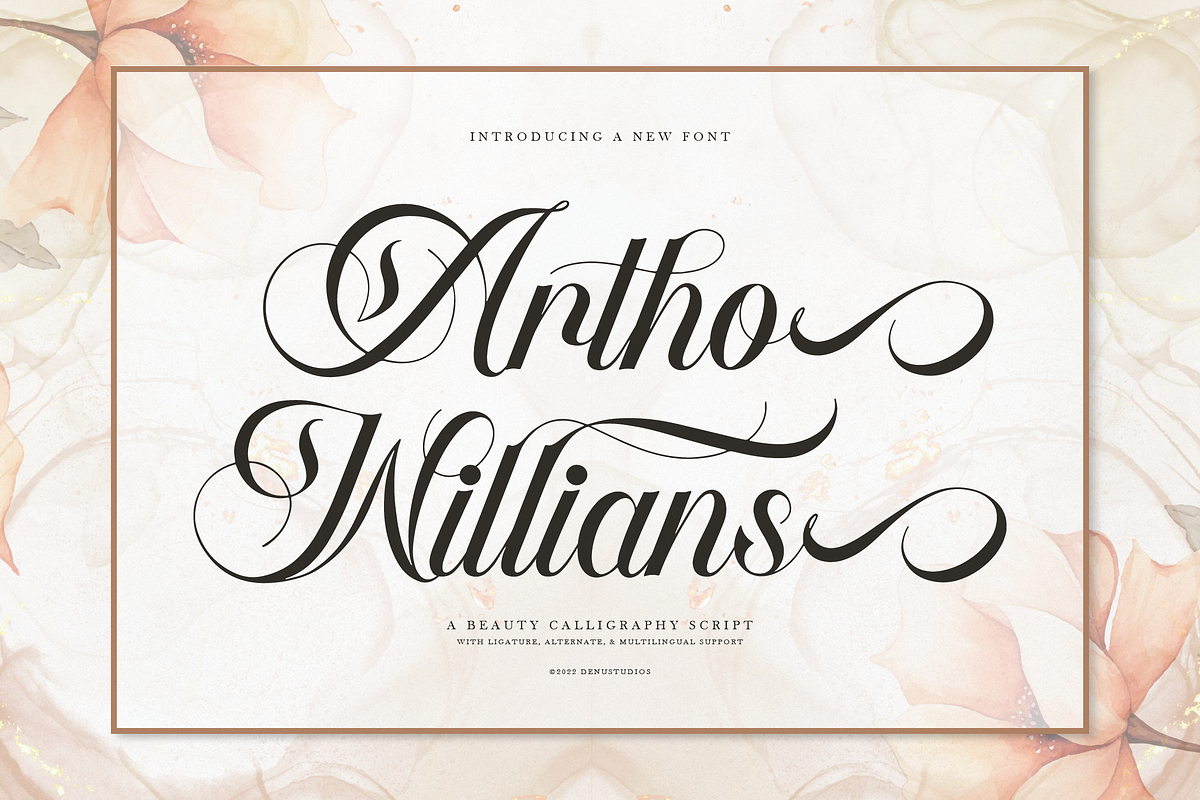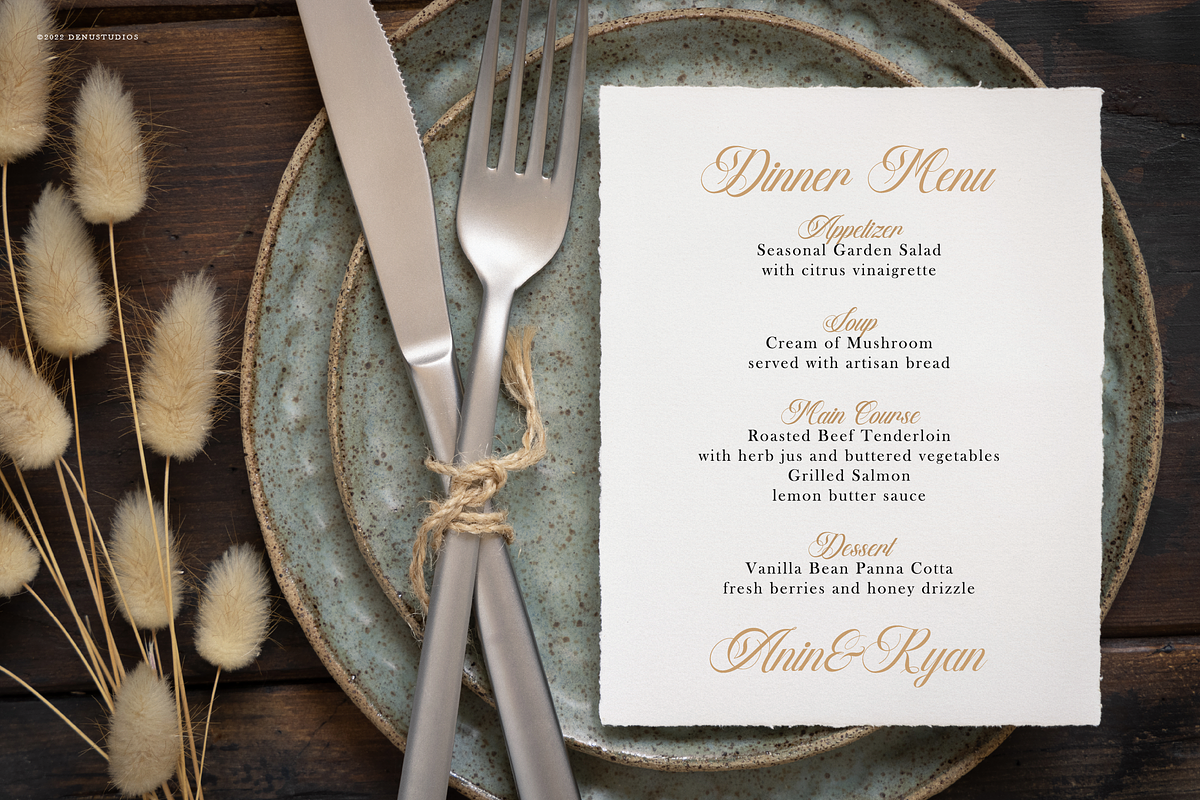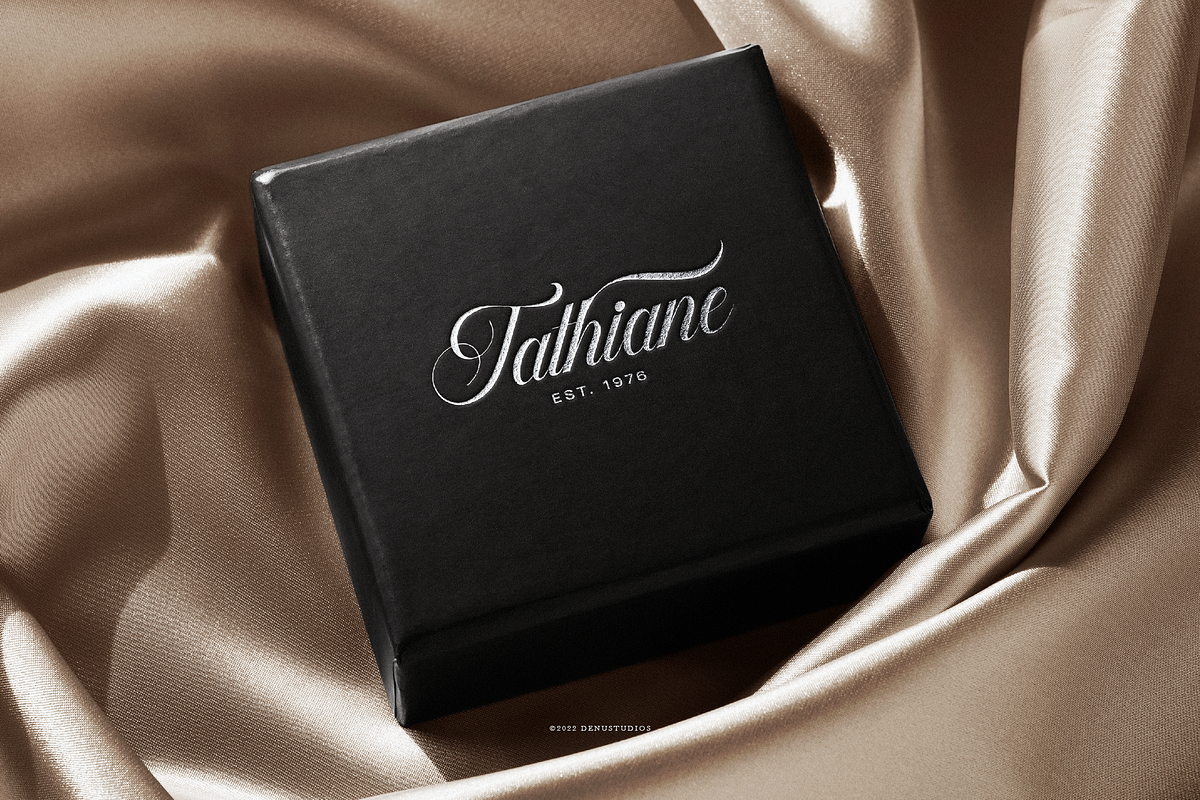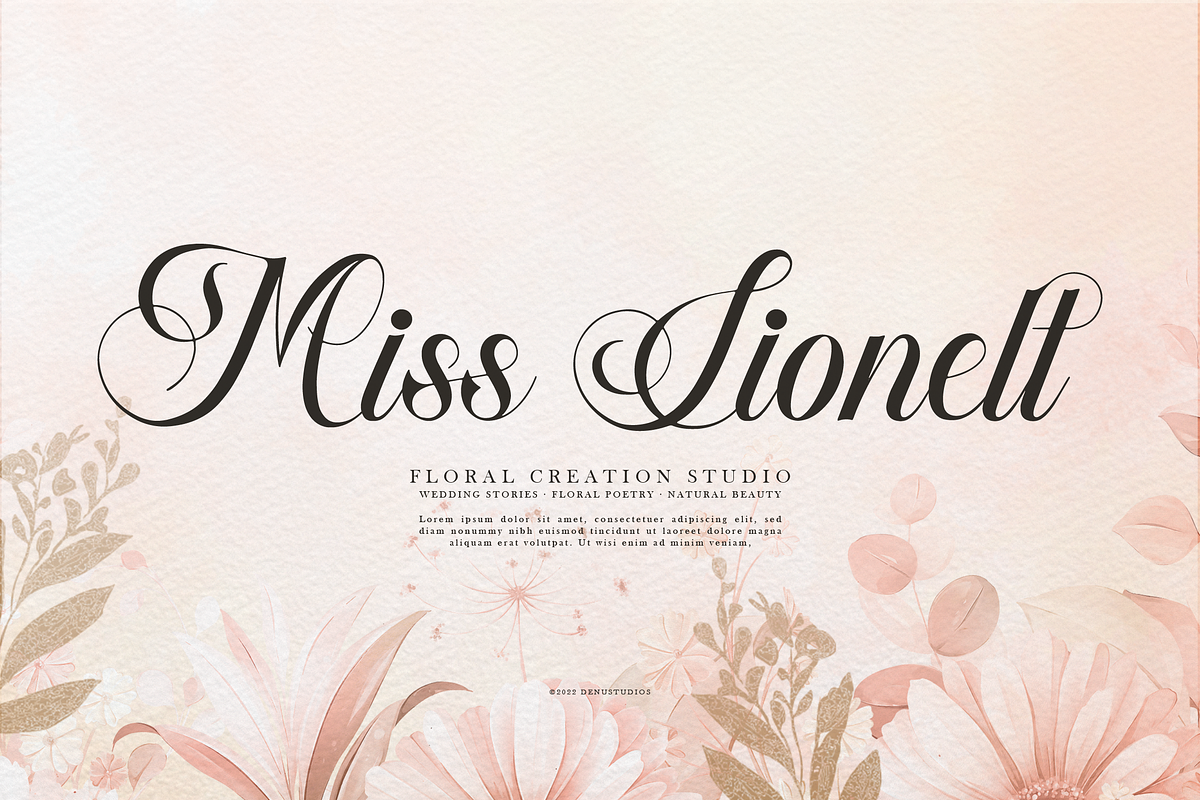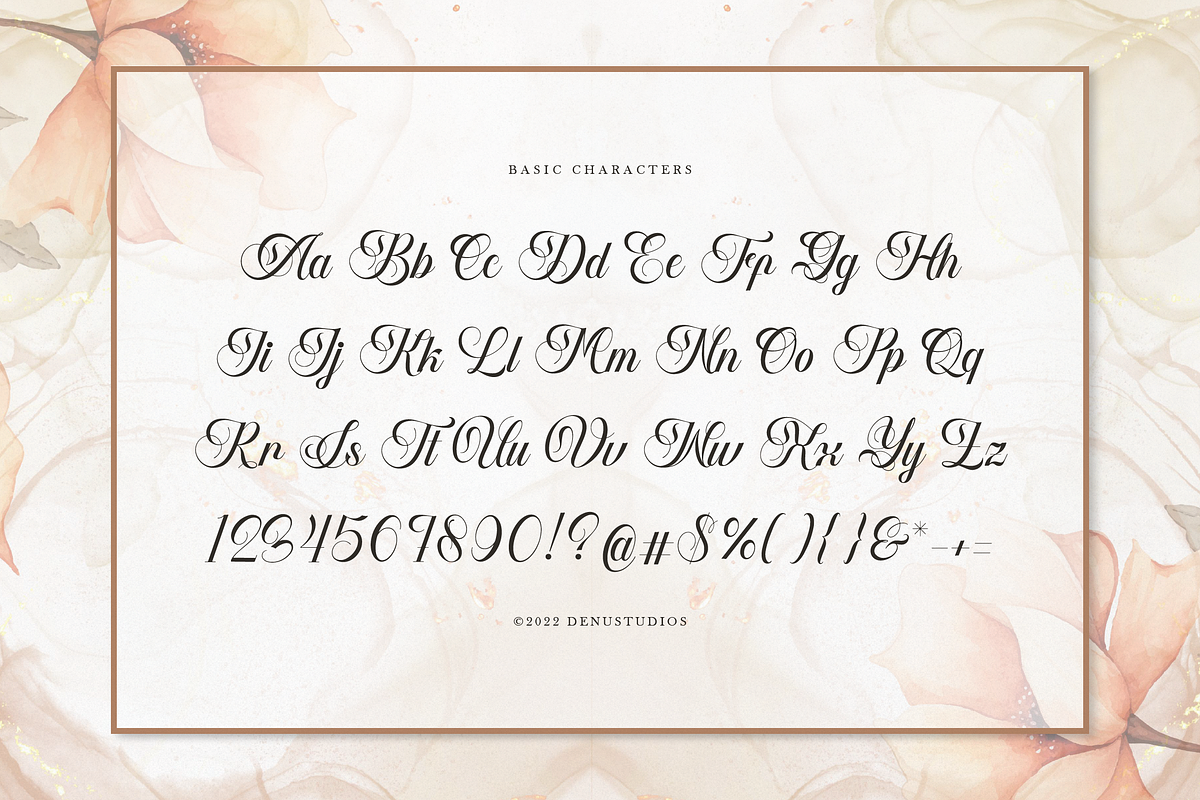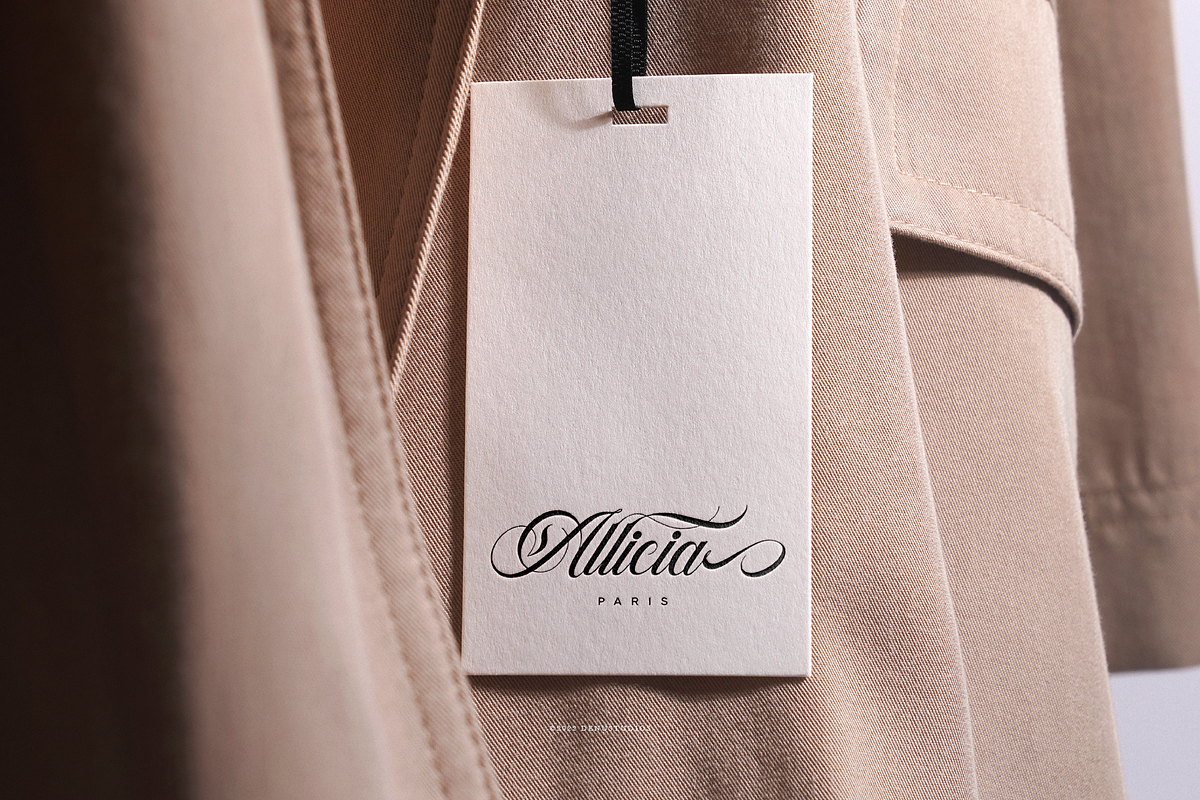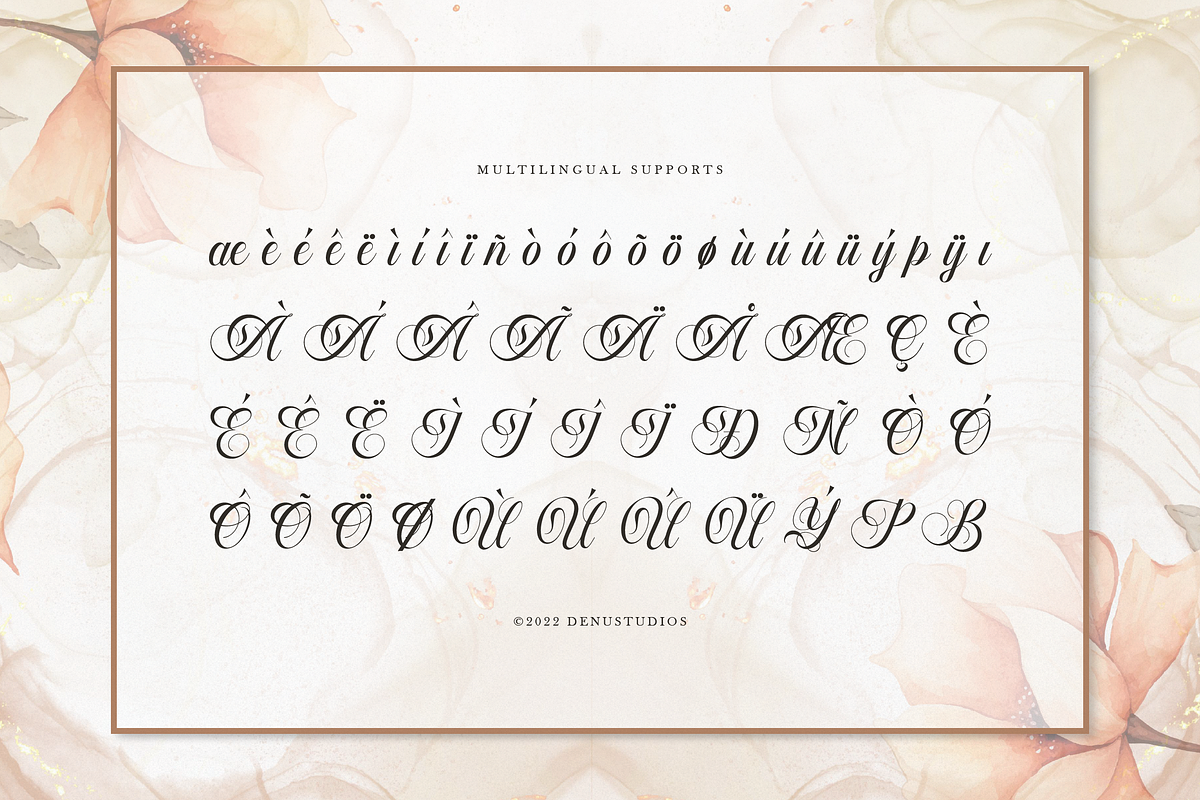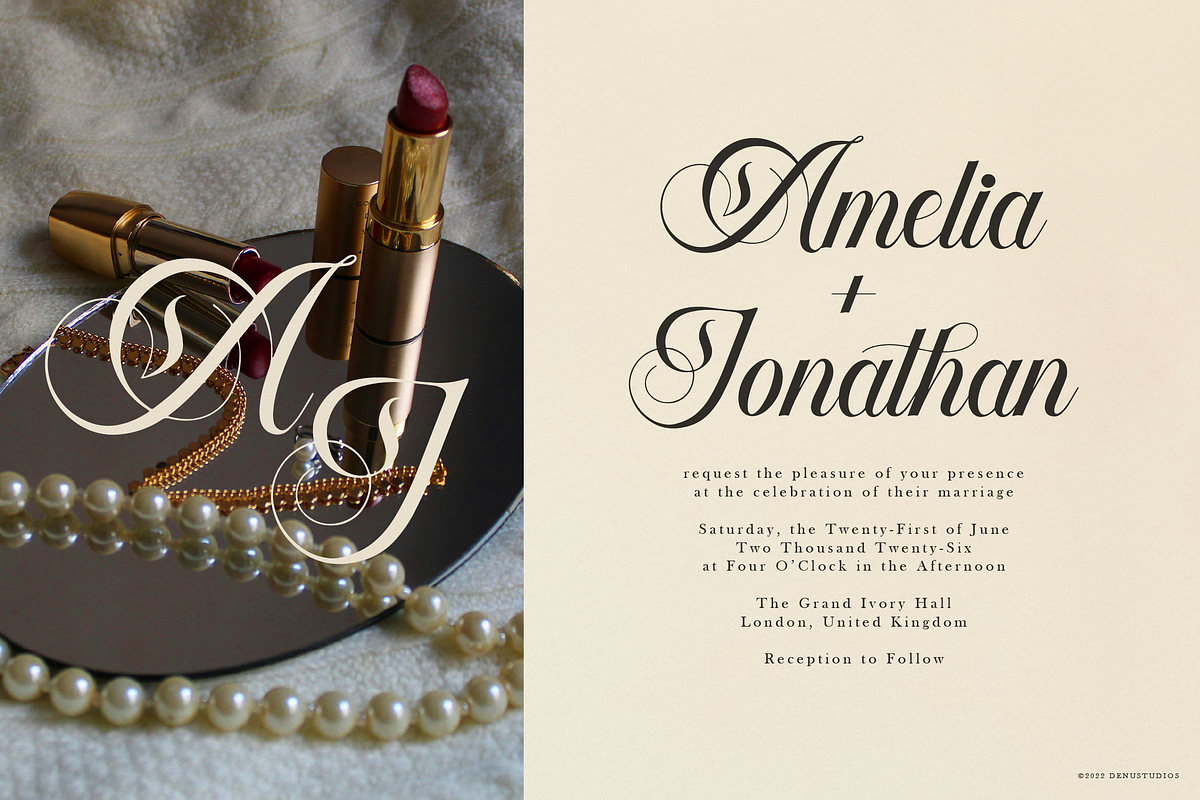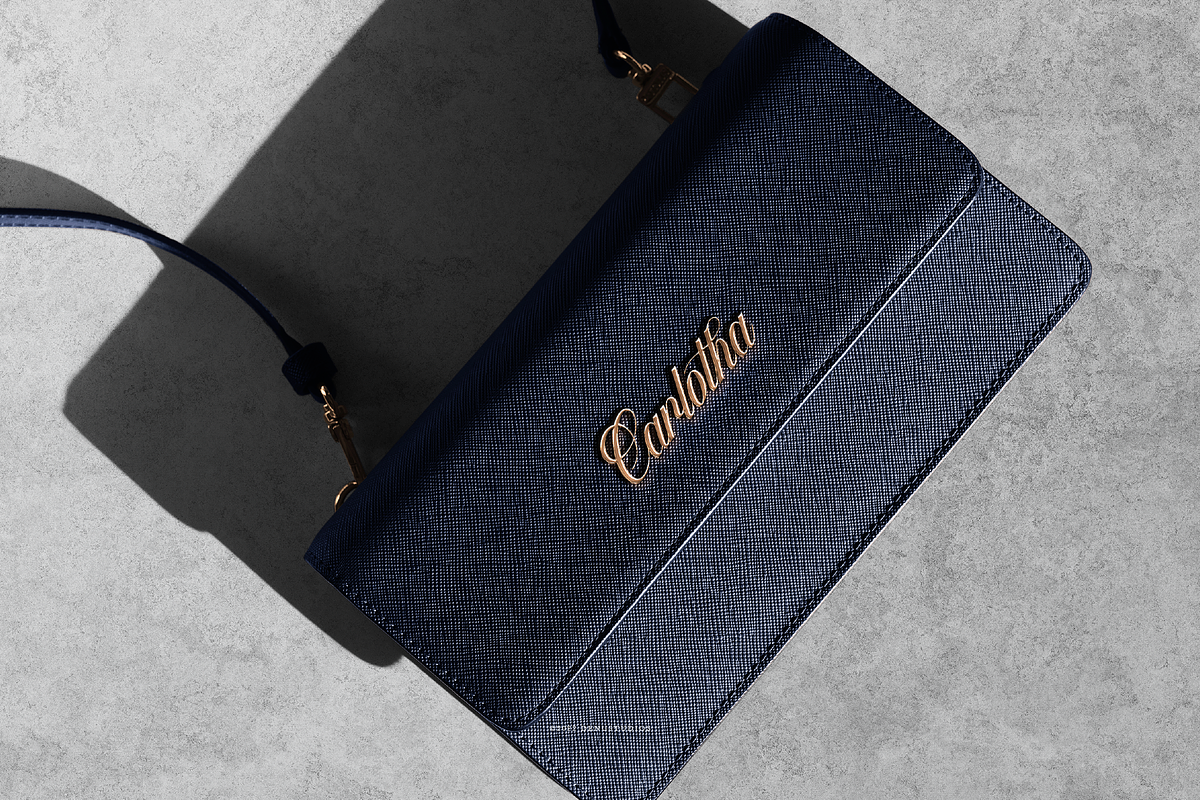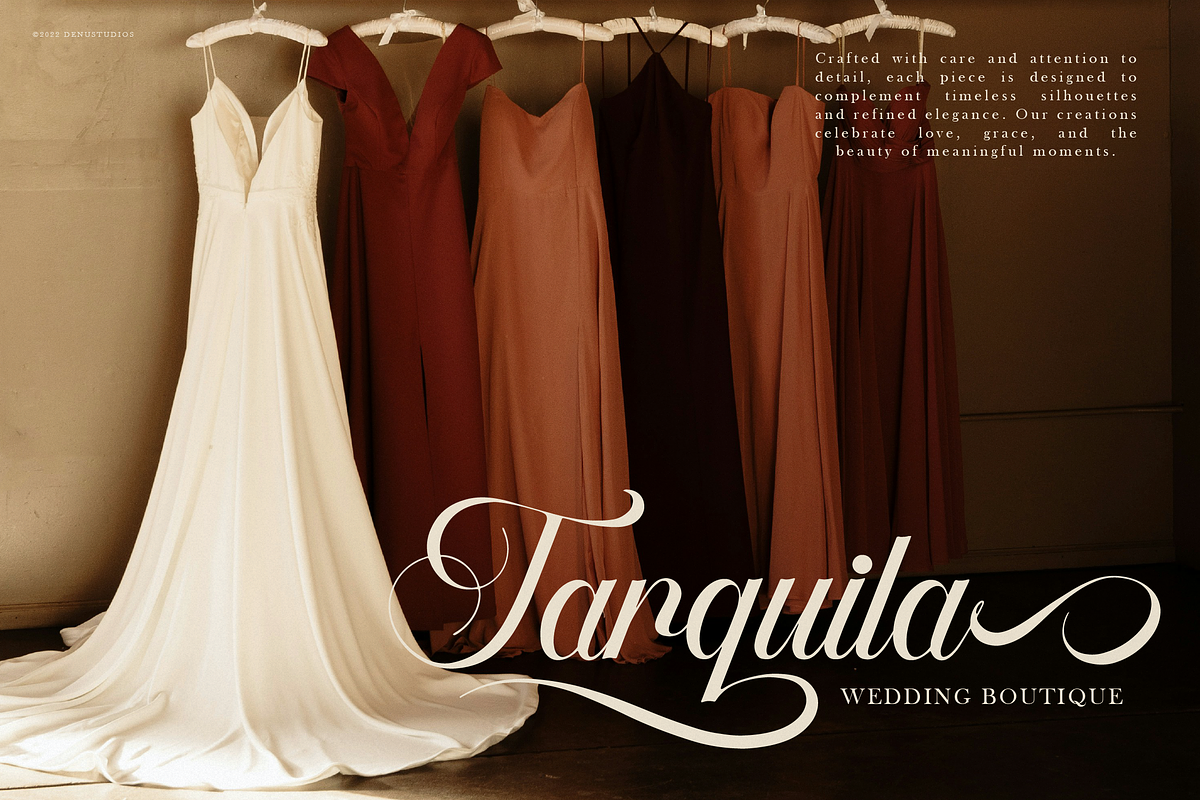
Artho Willians | Beauty Calligraphy
Artho Willians | Beauty Calligraphy Script, from Denustudios, suitable for any projects such as: logos, branding projects, homeware designs, product packaging, mugs, quotes, posters, shopping bags, t-shirts, book covers, name card, invitation cards, greeting cards, label, photography, watermark, special events, and all your other lovely projects that need a Callighrapy taste.